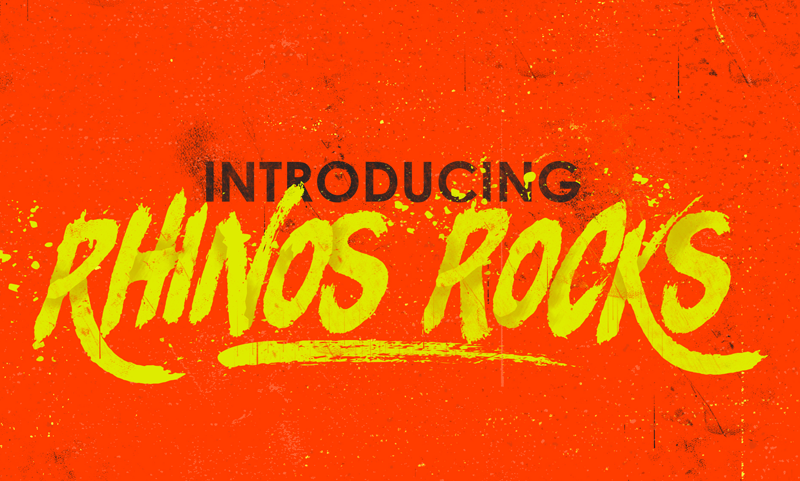
Font bursting with energy, quick strokes and sharp edges. Ideal for loud messages. Very interesting to use for logos, name tags, handwritten quotes, product packaging, merchandise, social media & greeting cards .Also, ideal to make t-shirts design and other clothing products. If you want to use it in commercial purpose please buy licence here : http://www.leosupply.co Please report if you find any bugs or have some problems with this font. This font is only for PERSONAL use |